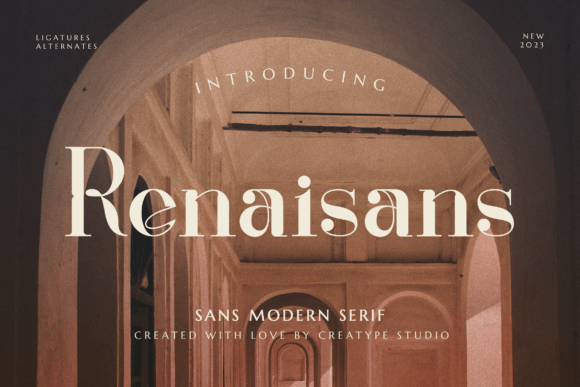
Embark on a Typographic Journey with Renaisans: The Font That Unleashes Your Creative Vision
In the realm of visual communication, fonts hold an immense power to shape the essence of your message and leave an indelible impression on your audience. Meet Renaisans, an extraordinary serif typeface that transcends ordinary boundaries and takes your designs to captivating new heights. Its bold and curvy strokes dance harmoniously, exuding a dramatic flair while retaining a distinctive aesthetic that sets it apart from the mundane.
Discover the Allure of Renaisans: A Font Designed to Inspire
With Renaisans, you'll find a font that's not just a collection of letters, but an instrument of creativity that unlocks a world of possibilities. Its meticulously crafted curves and purposeful angles evoke emotions and add depth to your designs. Whether you're a seasoned designer or just starting out, Renaisans will become your trusted companion in crafting visuals that speak volumes.
Unleash Your Branding Potential with Renaisans: The Perfect Font for Building a Memorable Identity
In the competitive world of branding, every detail matters. Renaisans emerges as a formidable ally in building a brand that stands out and resonates with your audience. Its bold presence commands attention, while its refined elegance adds a touch of sophistication that sets you apart from the ordinary. From logos that leave a lasting impression to captivating social media posts that draw eyes, Renaisans will elevate your branding efforts to new heights.
Experience the Versatility of Renaisans: A Multifaceted Font for Diverse Design Needs
Renaisans is not confined to a single realm of design. Its versatility shines through in a multitude of applications, effortlessly adapting to your creative vision. Whether you're crafting wedding invitations that exude romance, designing social media posts that demand attention, or developing product packaging that captivates customers, Renaisans seamlessly blends into your project, amplifying its impact and delivering stunning results.
Embrace the Beauty of Renaisans: A Font That Inspires and Captivates
With Renaisans, you're not just downloading a font; you're inviting creativity into your life. Its carefully crafted glyphs and ligatures, accessible with ease through PUA encoding, empower you to add intricate details and flourishes that transform your designs into works of art. Let Renaisans be your muse, inspiring you to push the boundaries of design and create visuals that captivate and mesmerize.